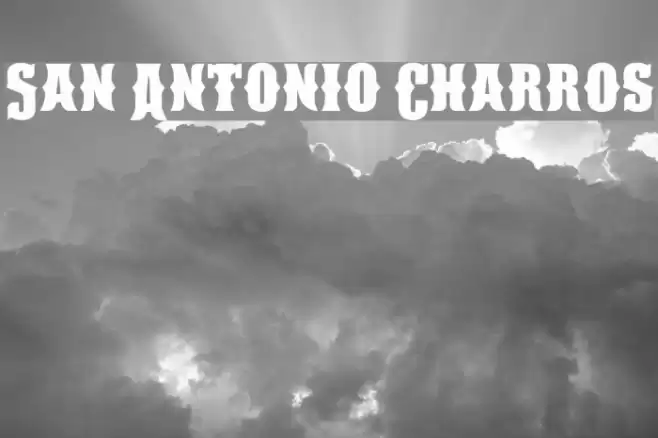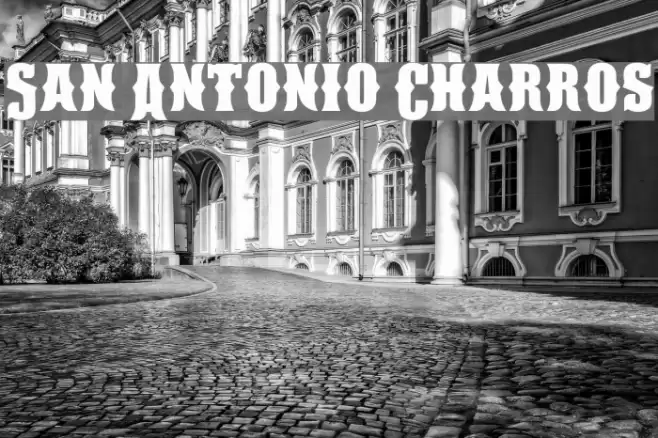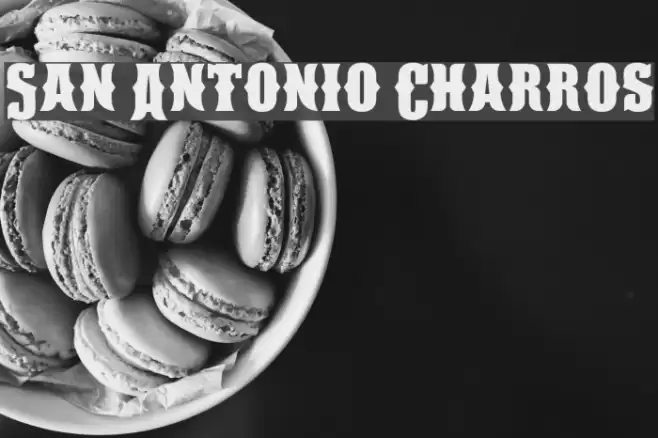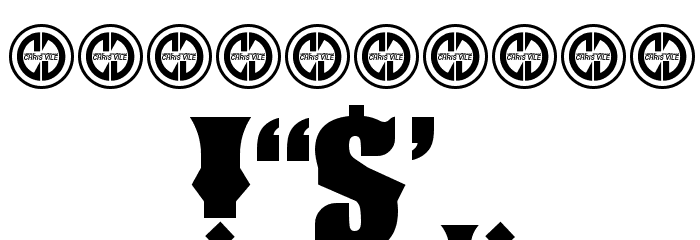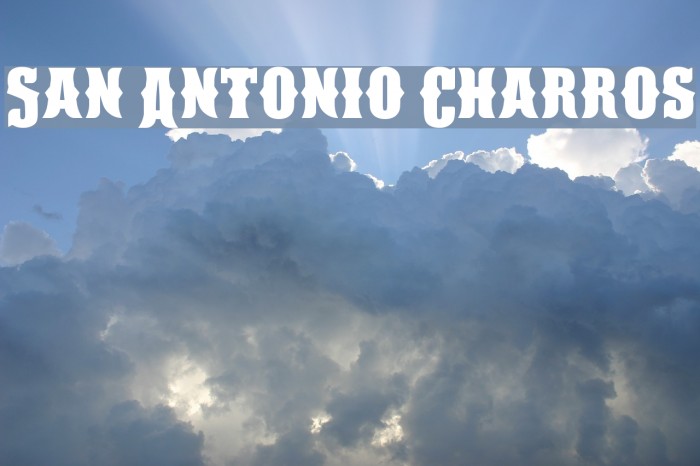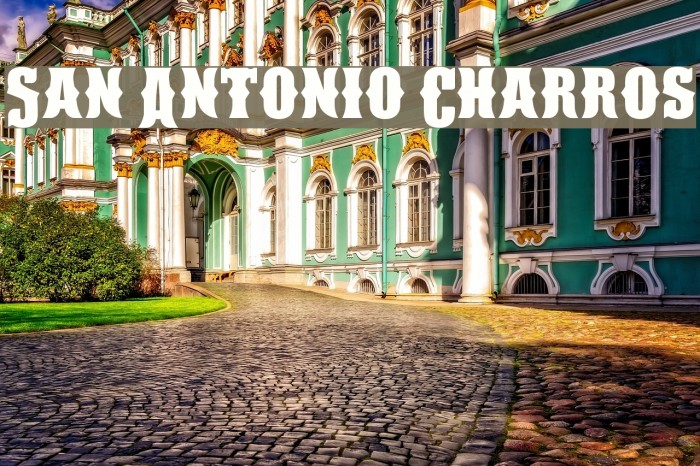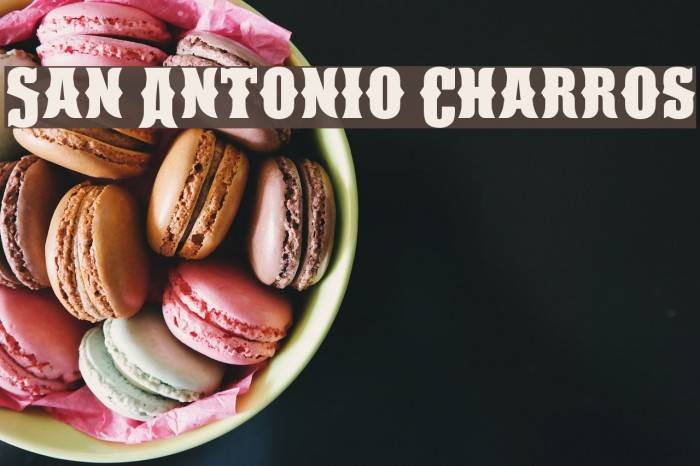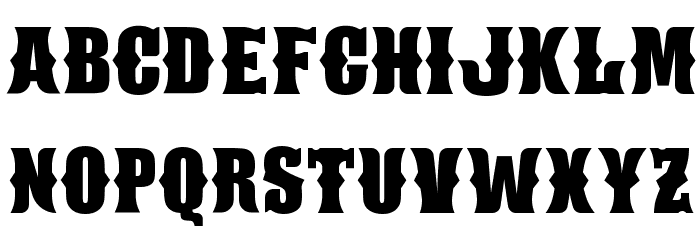
San Antonio Charros Font
San Antonio Charros Description
This font features a bold and striking design with a distinctly Western flair, reminiscent of classic cowboy and rodeo aesthetics. The characters are robust and heavily stylized, with thick strokes and unique cut-out shapes that add a sense of movement and dynamism. The uppercase letters are particularly prominent, making them ideal for attention-grabbing headlines or titles. The font's decorative elements are reminiscent of traditional Western motifs, making it perfect for projects that require a touch of rustic charm or vintage appeal. The overall look is both nostalgic and impactful, suitable for a variety of creative applications.
A bold, Western-inspired font with thick strokes and decorative cut-out shapes from Uncategorized fonts.
- Proposed Projects: Ideal for Western-themed posters, event flyers, branding for cowboy or rodeo events, and vintage-style packaging.
- Overall Style: Vintage